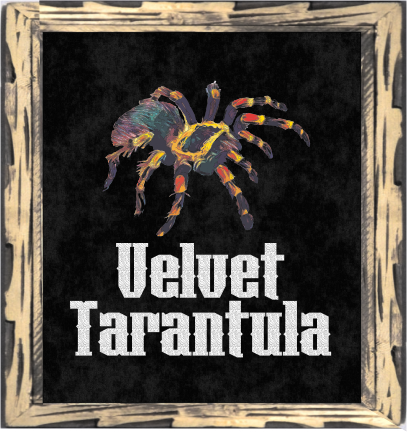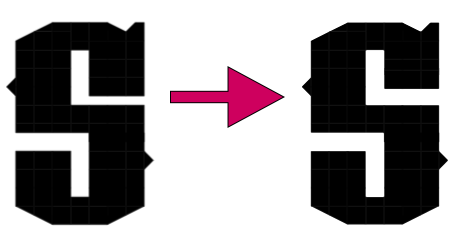
Excellent.
Congratulations! FontStruct Staff have deemed your FontStruction worthy of special mention. “Velvet Tarantula” is now a Top Pick.
one of my favourites ever
Outstanding work, with a high usability factor.
The only constructive crit is that perhaps the colour of the 's' could do with a tweek.